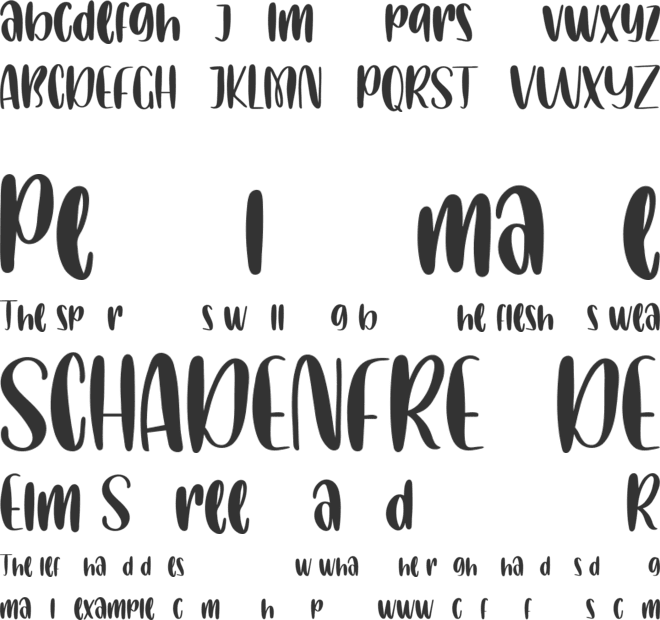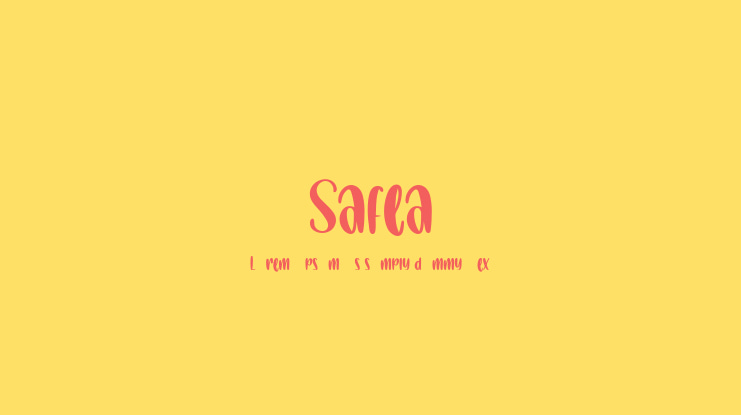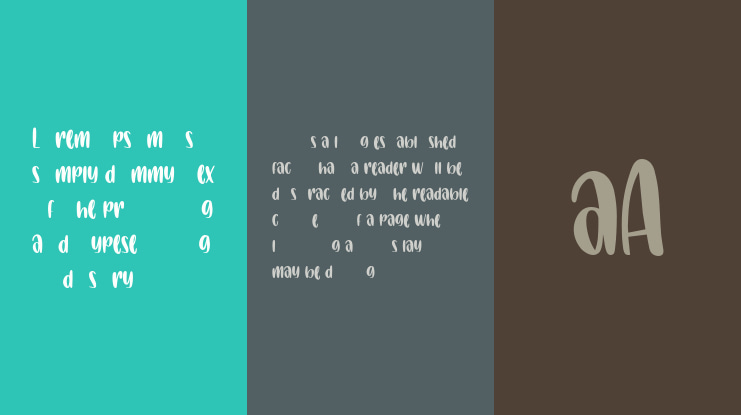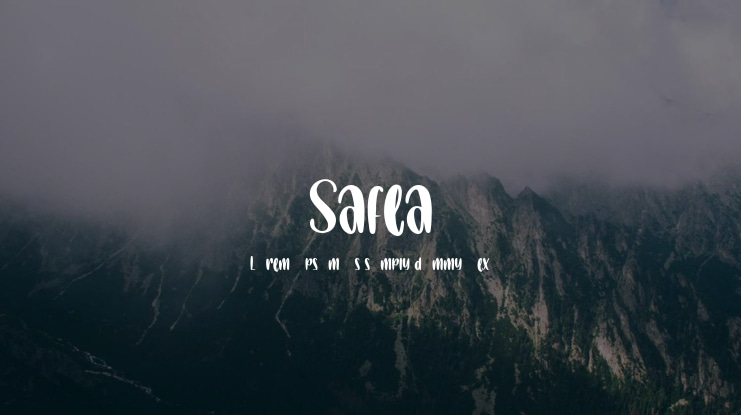
Safea Font
Safea Font is a handwritten display font with a strikingly authentic feel font is our new item that is suitable for your Posters. Great for Logo, Poster, Sticker, Jerseys, Invitation Cards, Brochure, etc.